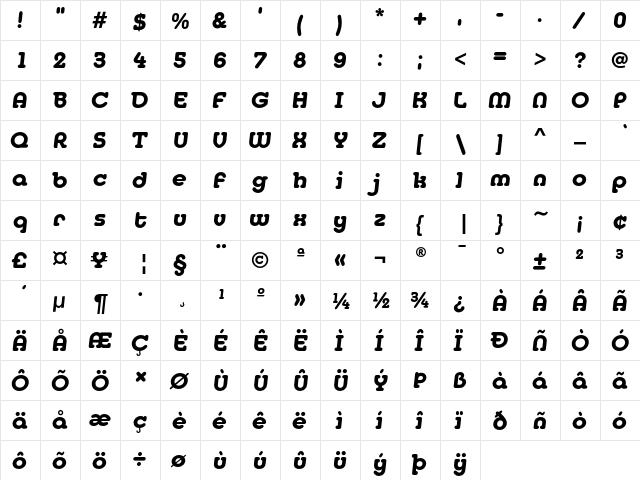
MediaSerifEF BoldItalic Font Preview
MediaSerifEF BoldItalic
Design Context for MediaSerifEF Typeface
MediaSerifEF brings classic typographic sensibility to the table — its serifs and measured letterforms reflect centuries of print heritage. The slanted form adds forward momentum and visual energy. The heavy weight commands attention and anchors typographic hierarchies.
Pro Tip: Use MediaSerifEF for editorial body copy and considered headline work. Pair with a neutral sans for UI elements or captions to create a classic hierarchy.